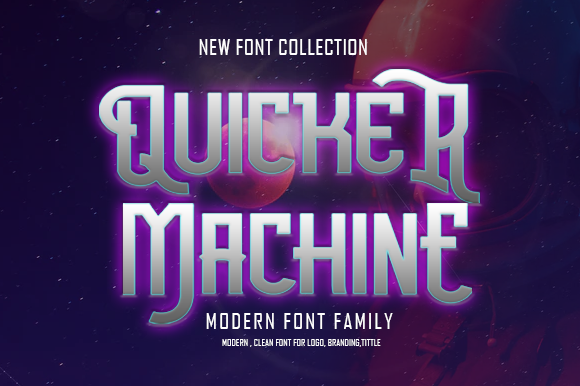
Step into the world of cinematic grandeur with Quicker Machine, the ultimate display font designed to ignite the silver screen within your designs. This awe-inspiring creation by victoriant99 captivates with its bold and imposing presence, effortlessly elevating your projects to new heights of visual impact.
Picture this: the allure of a Hollywood blockbuster, the heart-pounding tension of a gripping thriller, the whimsical charm of an animated classic—Quicker Machine brings them all to life. Its uniquely sculpted letters, meticulously crafted with a keen eye for detail, command attention and leave a lasting impression.
Unleash your creativity and let Quicker Machine take center stage in your movie titles, posters, and any design that demands a touch of cinematic flair. Its bold strokes and distinctive letterforms exude an air of sophistication and intrigue, instantly drawing the viewer's gaze. From epic adventures to heartfelt dramas, Quicker Machine sets the stage for unforgettable visual storytelling.
But Quicker Machine's allure extends far beyond the silver screen. Its versatility knows no bounds, seamlessly adapting to a myriad of design projects, each with its own unique narrative. Whether you're crafting eye-catching logos, captivating social media posts, or simply adding a touch of cinematic charm to your everyday designs, Quicker Machine rises to the occasion.
With Quicker Machine at your fingertips, you unlock a world of limitless possibilities. Witness the transformation as ordinary designs morph into cinematic masterpieces, captivating audiences with their sheer brilliance. Embrace the power of Quicker Machine, and let your imagination run wild.